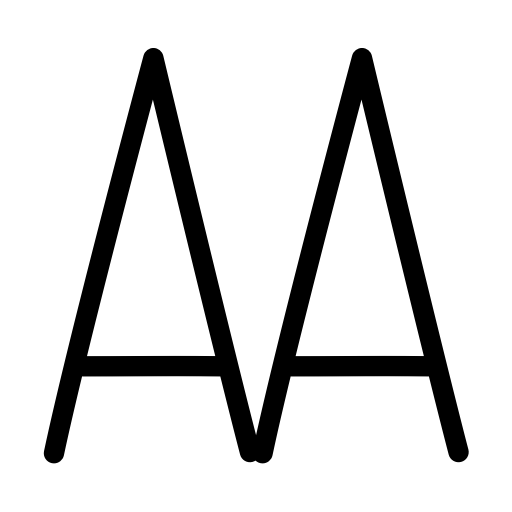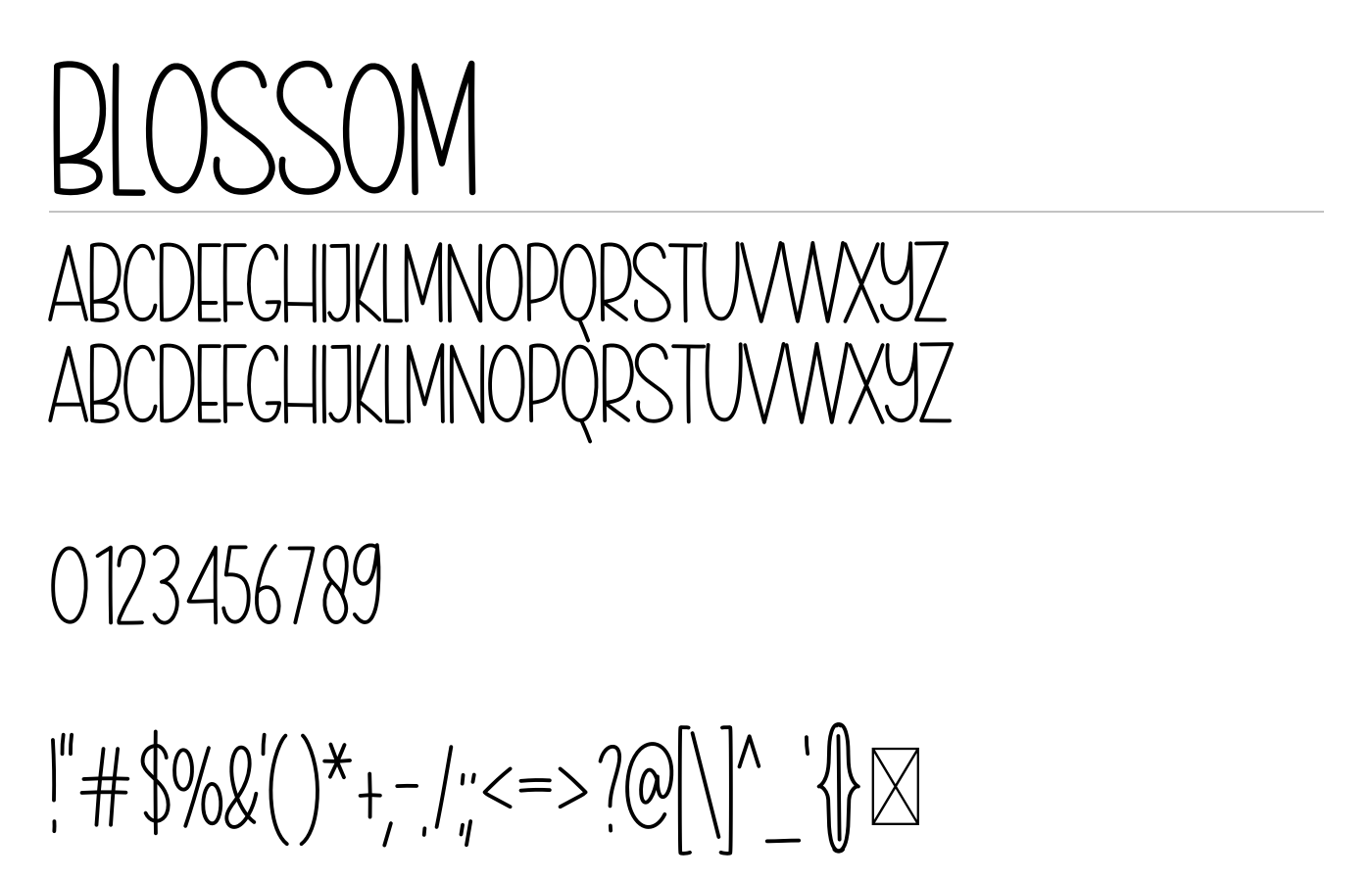
Blossom Font is a tall, narrow sans serif typeface with a playful and whimsical character, featuring thin, consistent strokes and a hand-drawn feel. Its elongated letterforms and casual style make it an excellent choice for creative projects, children’s books, and informal branding where a friendly, approachable vibe is desired. This font works well in headlines and display settings, adding charm and personality without overwhelming readability.
Blossom Font